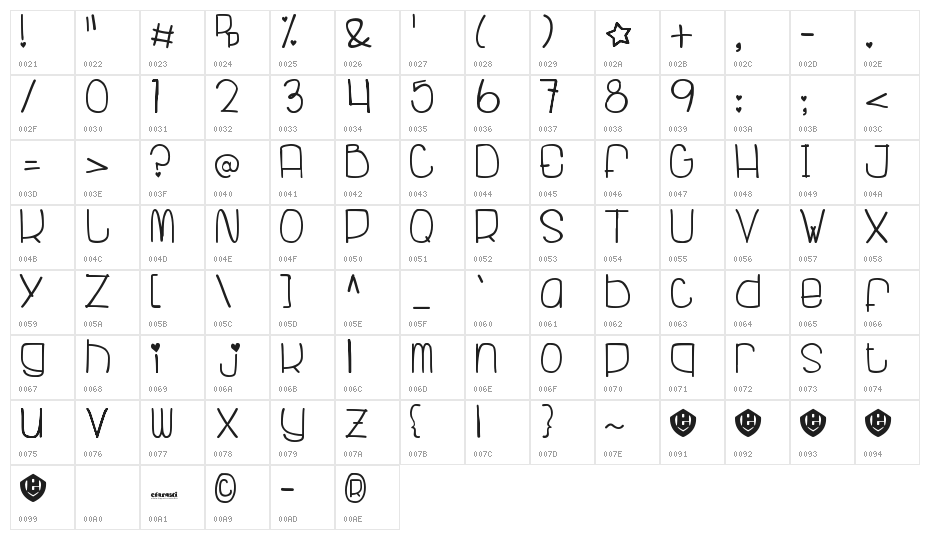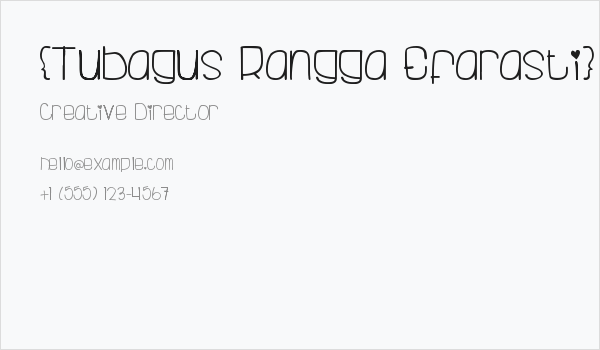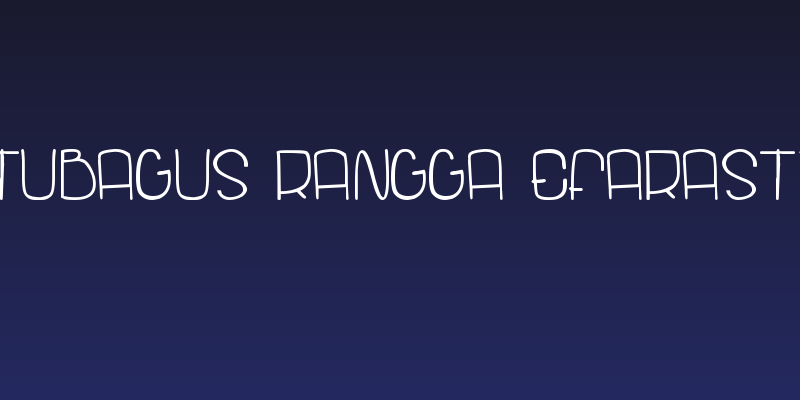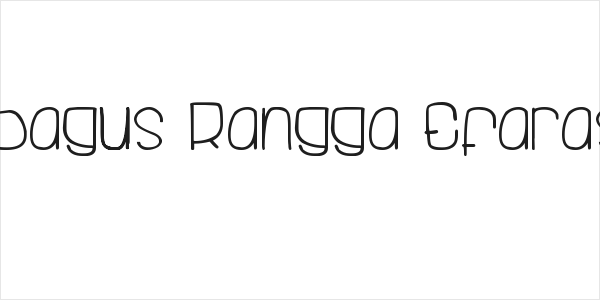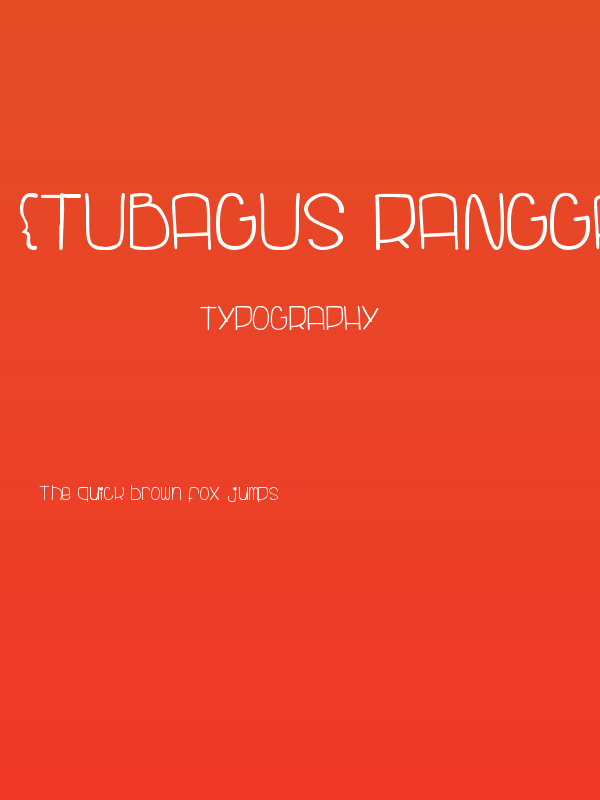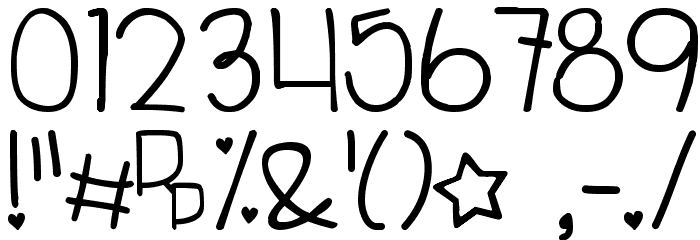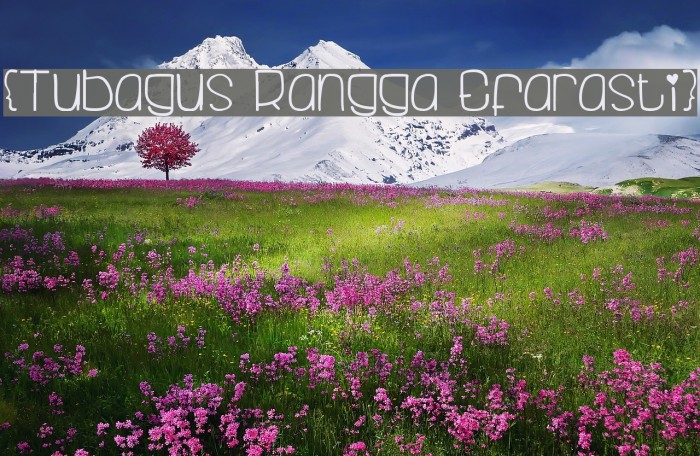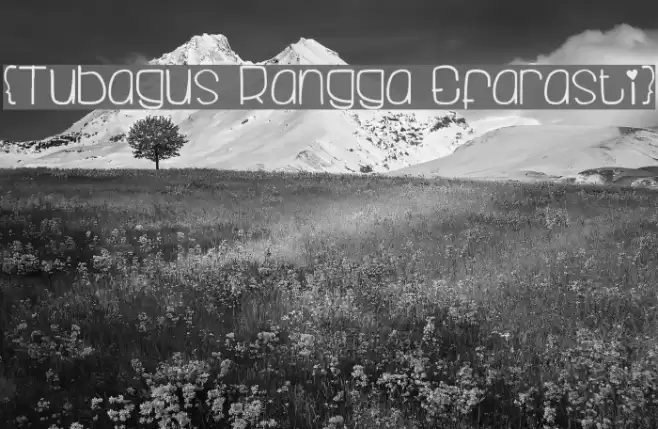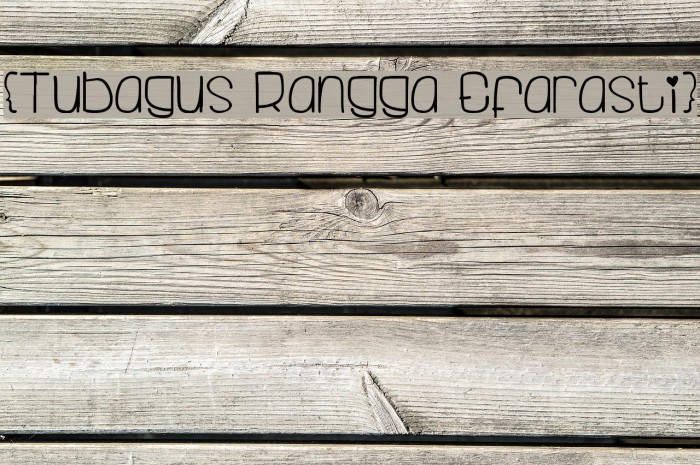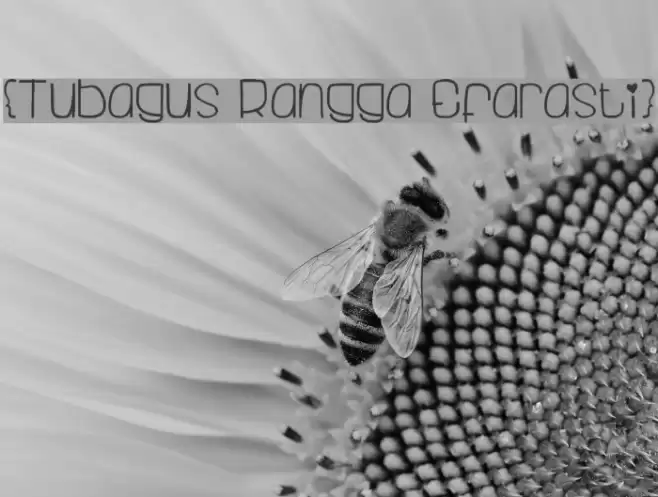
{Tubagus Rangga Efarasti} Font
{Tubagus Rangga Efarasti} Description
This playful and whimsical font features a unique handwritten style with a touch of charm. The characters are crafted with a consistent stroke width, giving it a clean and approachable appearance. Notably, the font includes heart-shaped embellishments on certain letters, adding a delightful and quirky element. The rounded edges and slightly irregular shapes contribute to its friendly and informal vibe. This font is perfect for projects that require a personal touch, such as greeting cards, children's books, or playful branding. The numbers and special characters maintain the same playful aesthetic, ensuring a cohesive look across all text elements.
| Overall Style | Playful |
| Use Case | Headlines, Logos, Informal Text |
| Proposed Projects | Ideal for greeting cards, children's books, playful branding, and informal invitations. |